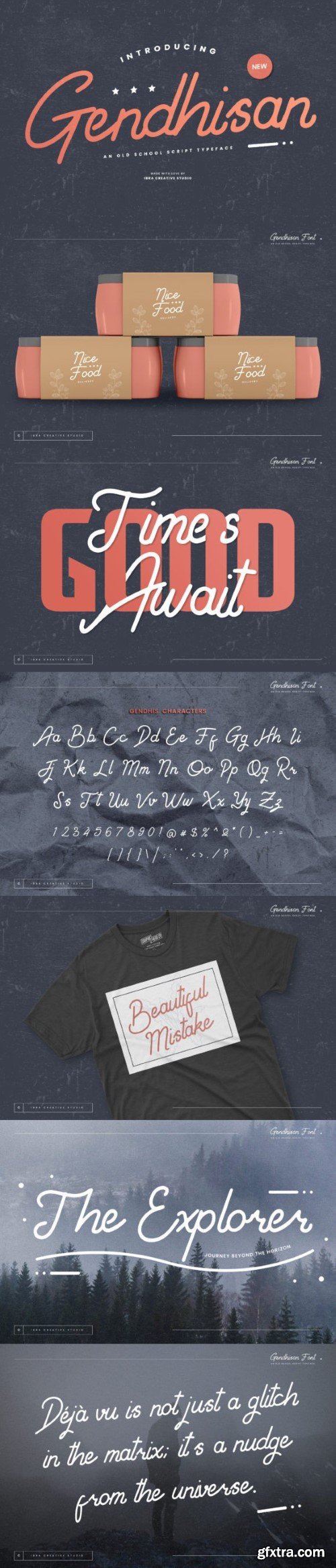
GENDHISAN 字体
Gendhisan, an old-school script typeface, exudes a timeless charm reminiscent of vintage lettering. With its elegant strokes and classic design, Gendhis captures the essence of handwritten scripts from a bygone era. Each character is carefully crafted to evoke a sense of nostalgia, reflecting the artistry of traditional calligraphy. The gracefully flowing lines and distinctive flourishes of Gendhis lend an air of sophistication to any project, making it an ideal choice for those seeking to infuse a touch of vintage authenticity into their designs.